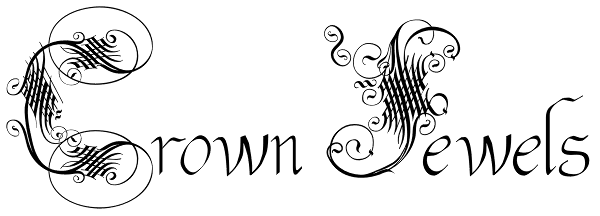
Crown Jewels
Crown Jewels is a massive Super Pro font like no other. This must be one of the most complex font ideas ever imagined. Based on an original font by George Williams, Crown Jewels takes that original idea to a whole new level. Containing thousands of...
Crown Jewels
Crown Jewels Flourishes